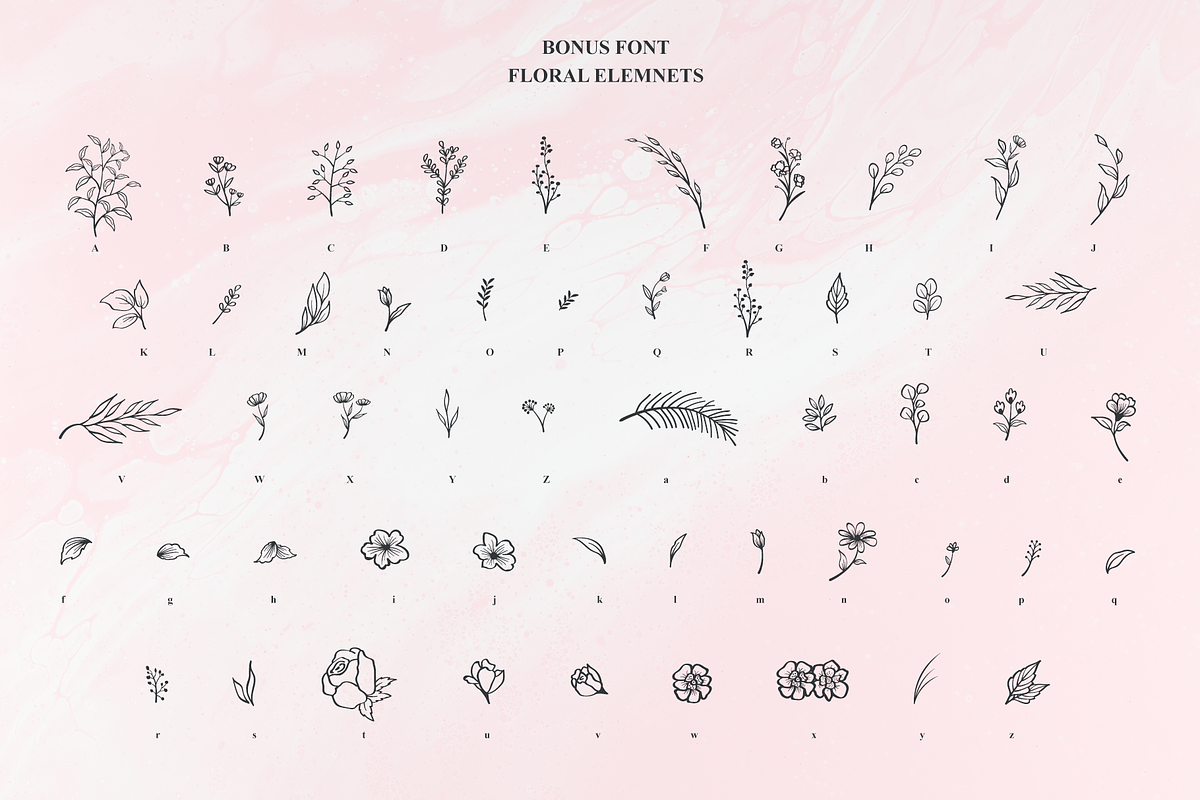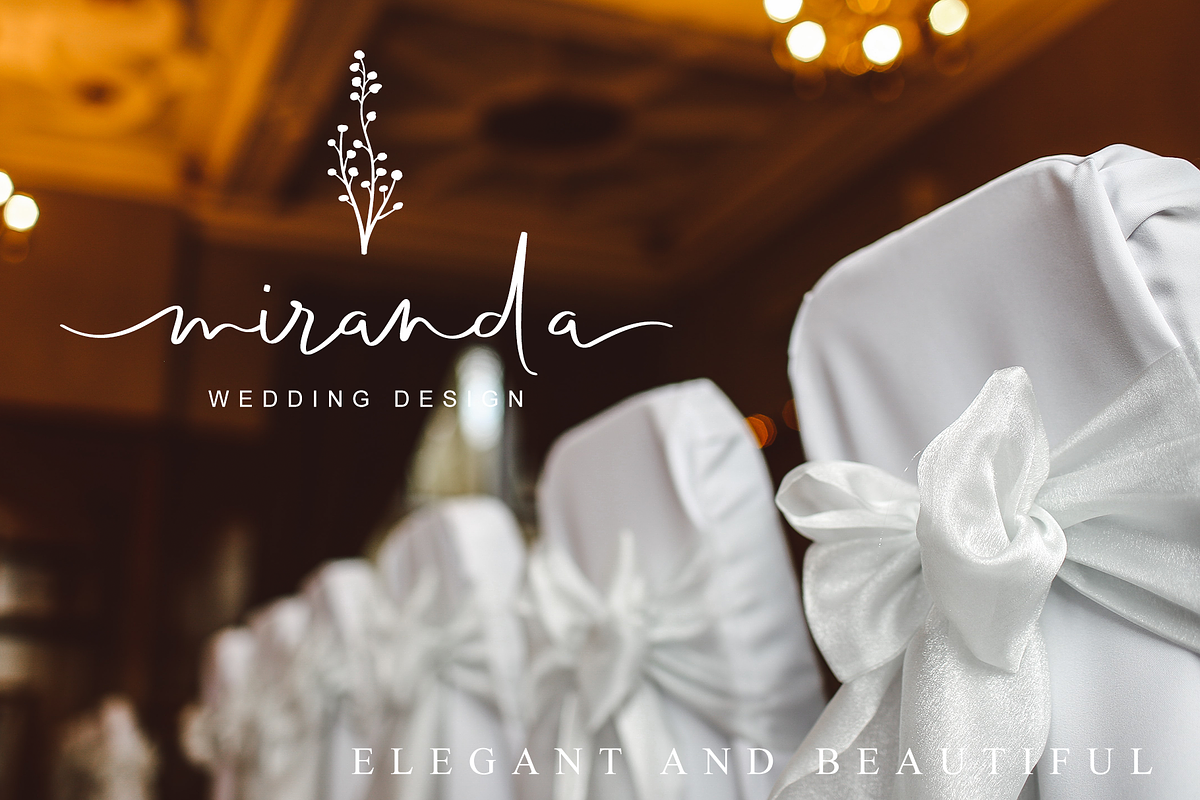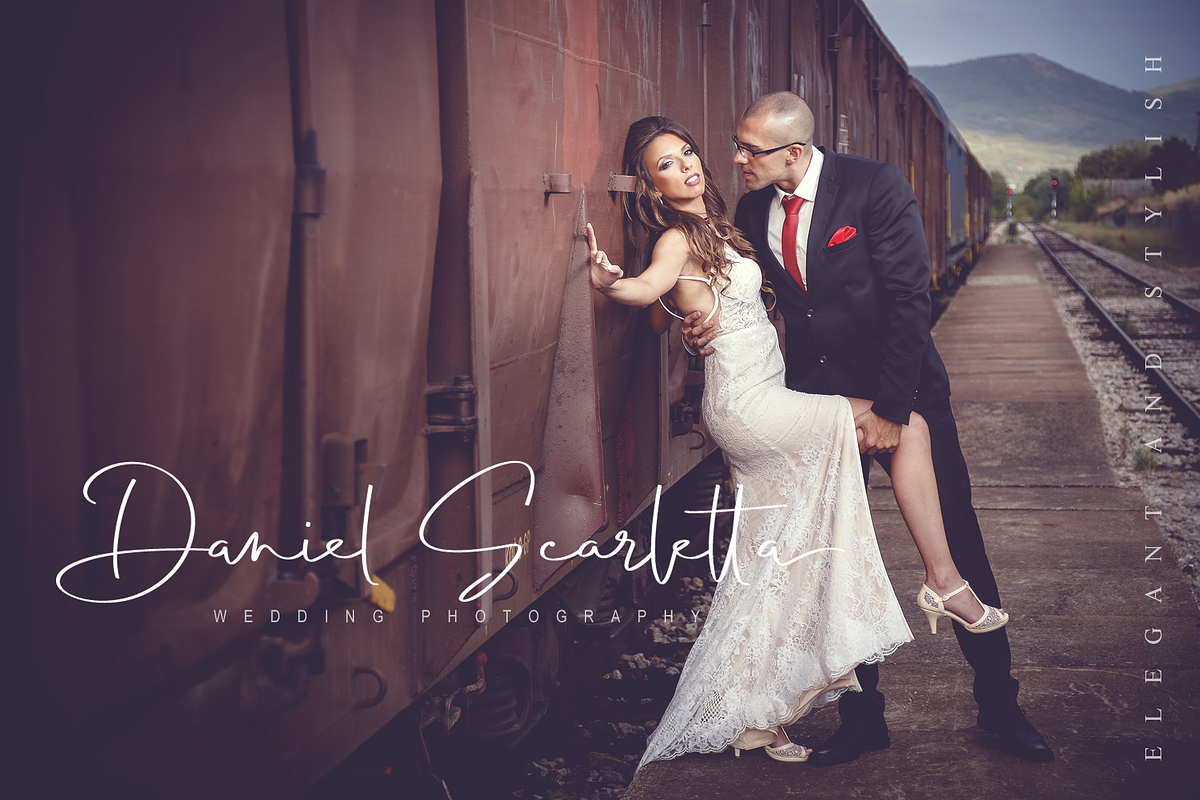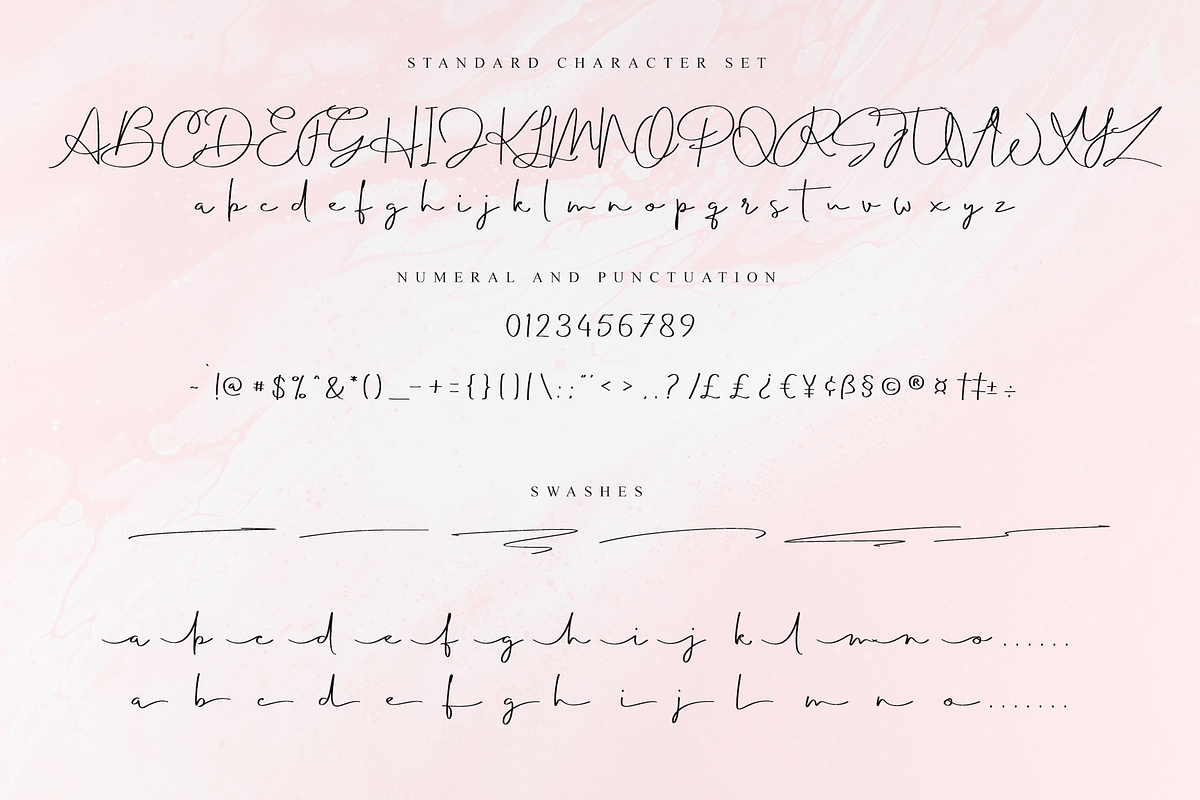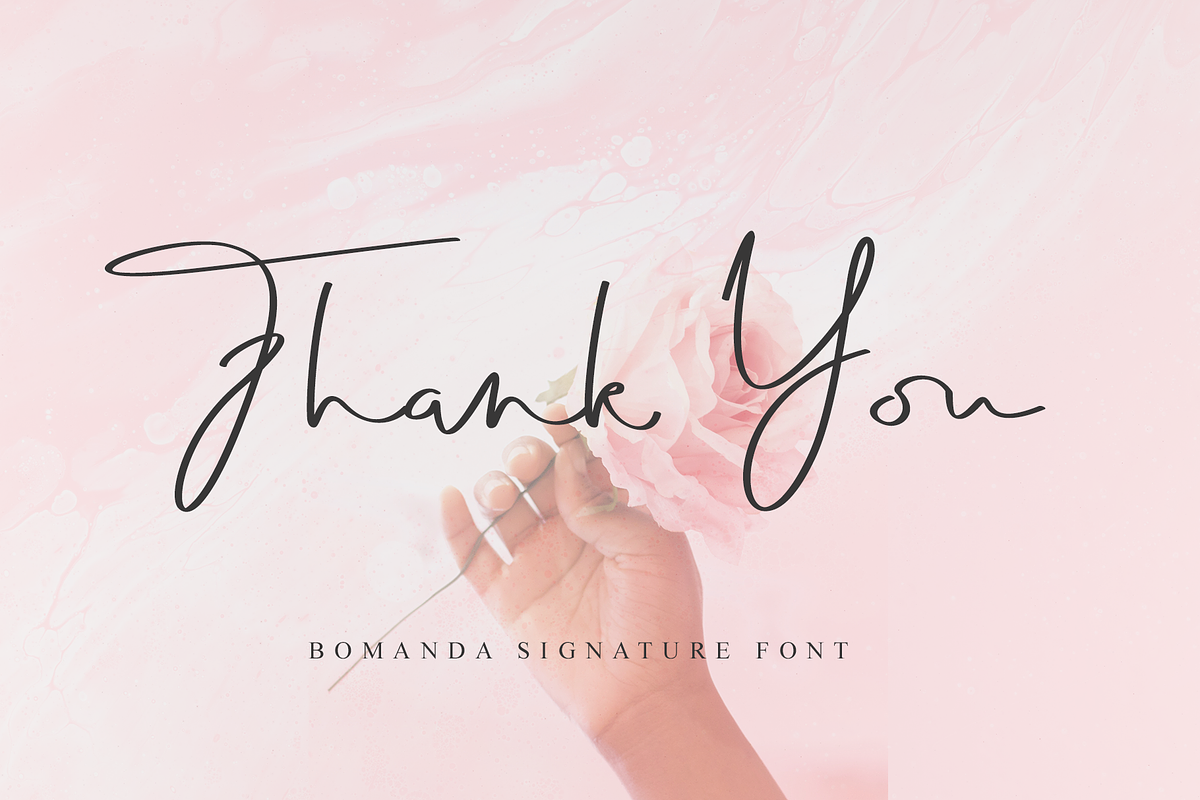
Bomanda Signature
Bomanda Signature is a handwritten signature font.
This font has 2 stylistic forms, namely regular and italic. Also added is a bonus 1 font, a floral element font that can be used for: logos, writing ornaments, making frames, and much more. You can create the perfect signature or logo with this font.